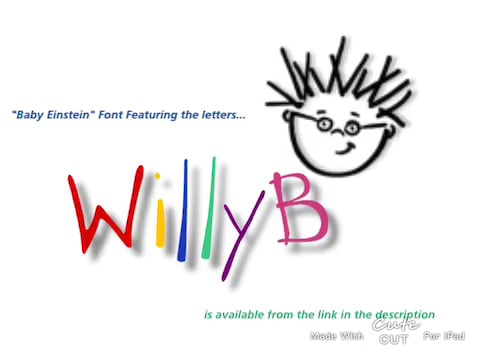
The baby einstein font contains 326 beautifully designed characters. Unknown baby einstein font (3) #1. The albert einstein font enables you to do exactly that.
Thousands of designers (famous or not) use the image font detection system to find a font or similar free fonts from an image. About the font baby einstein. Baby einstein is the perfect font for all your fun designs.baby einstein was designed by kimberly geswein.the author works at company kimberly geswein.the subfamily is regular.
The title of the tv series was designed using berlin sans demi designed by david berlow. Baby einstein is free for personal use only. About the font baby einstein.